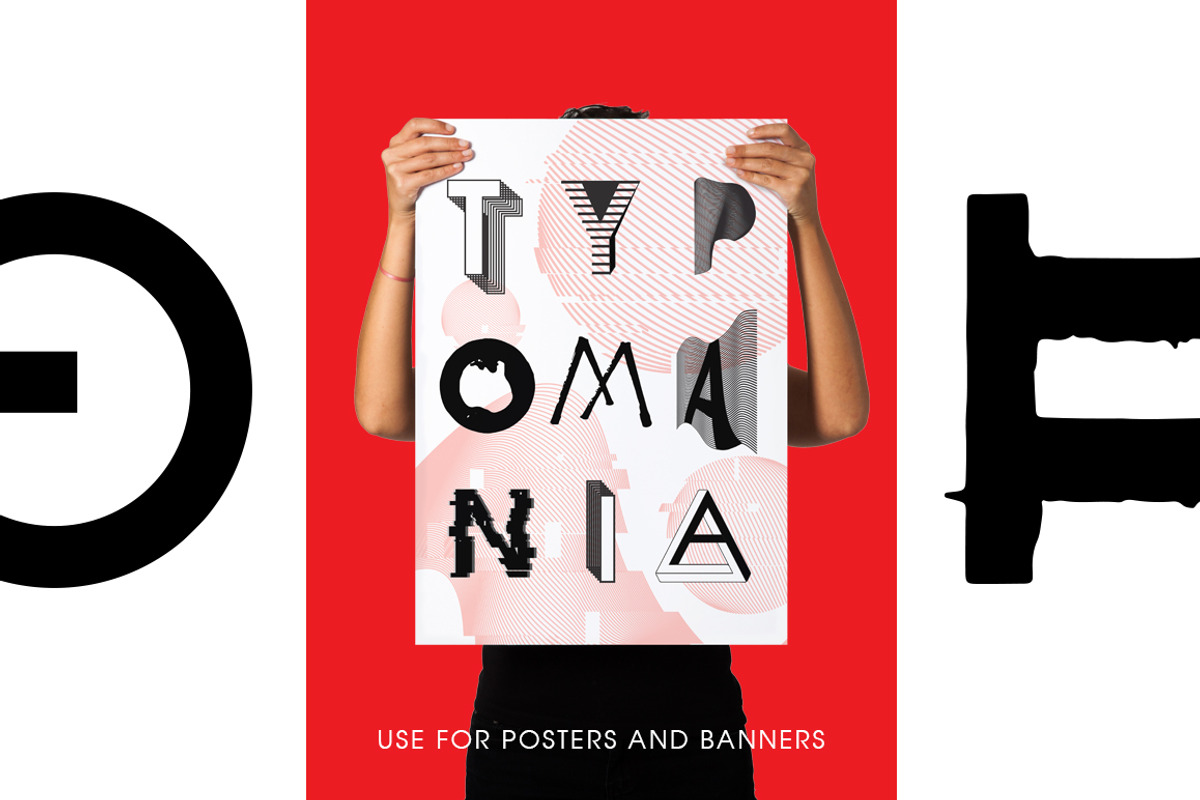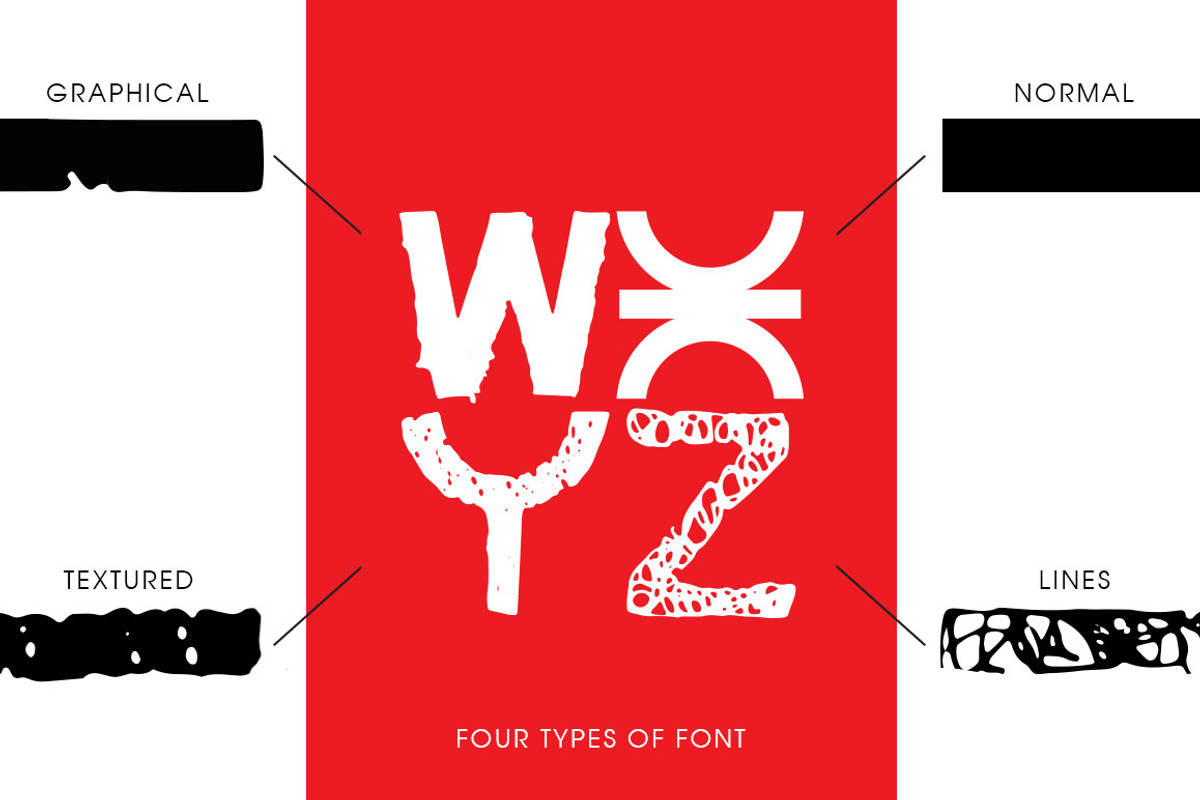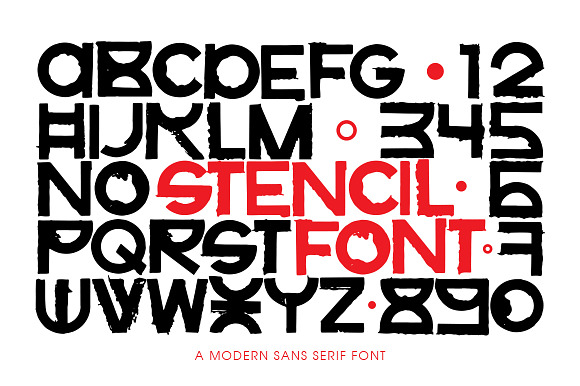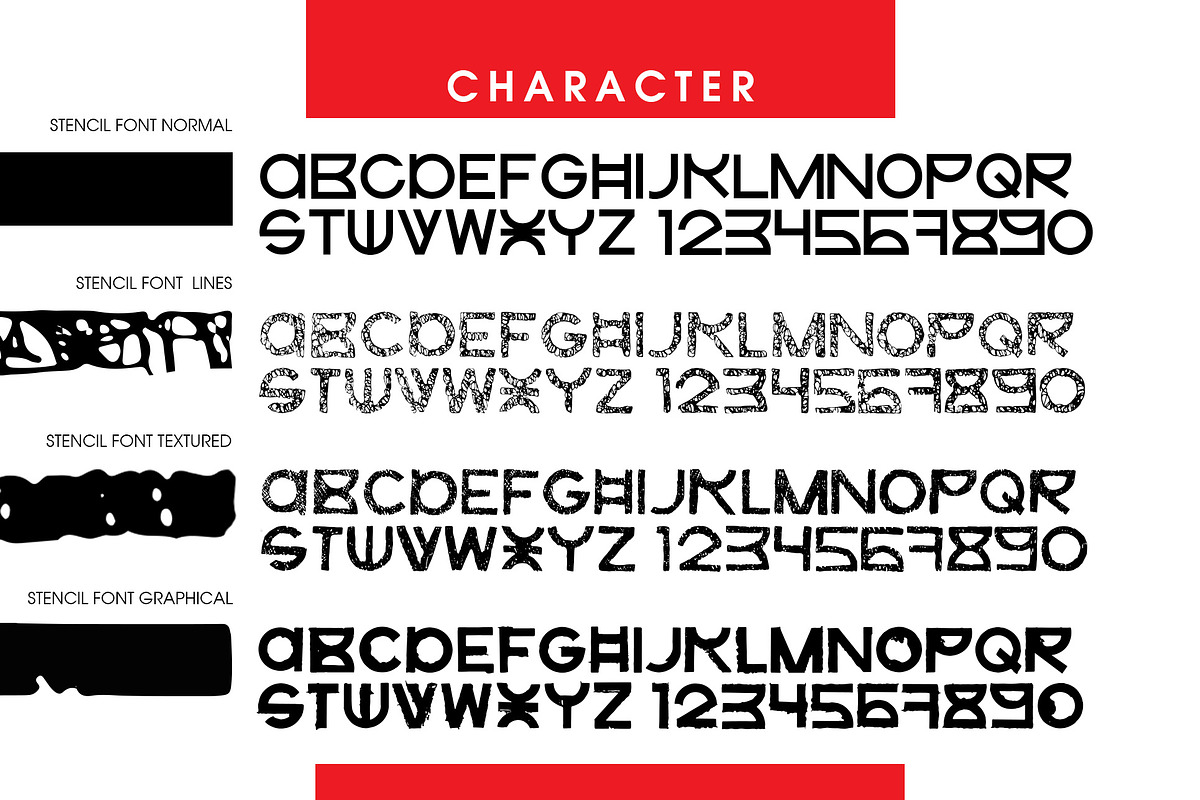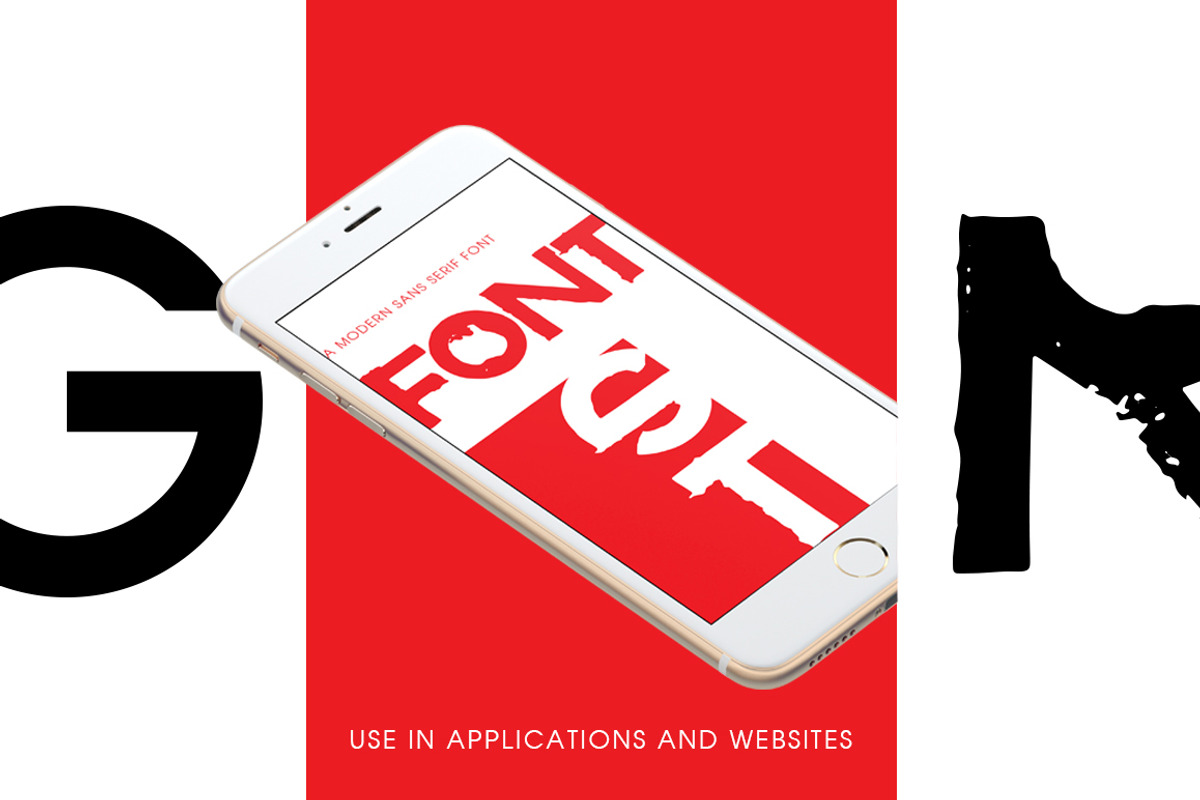
Stencil font
The Stencil font is a modern font for your design. four types of font use in application and websites use for poster and baner In the archive there is a set of necessary files (EPS., TTF., OTF)
- stencil font graphical Regular
- stencil font lines Regular
- stencil font normal Regular
- stencil font textured Regular
Why Stencil font is worth a look
Stencil font by Hurski Anton fits naturally into Branding, posters, packaging, typography.